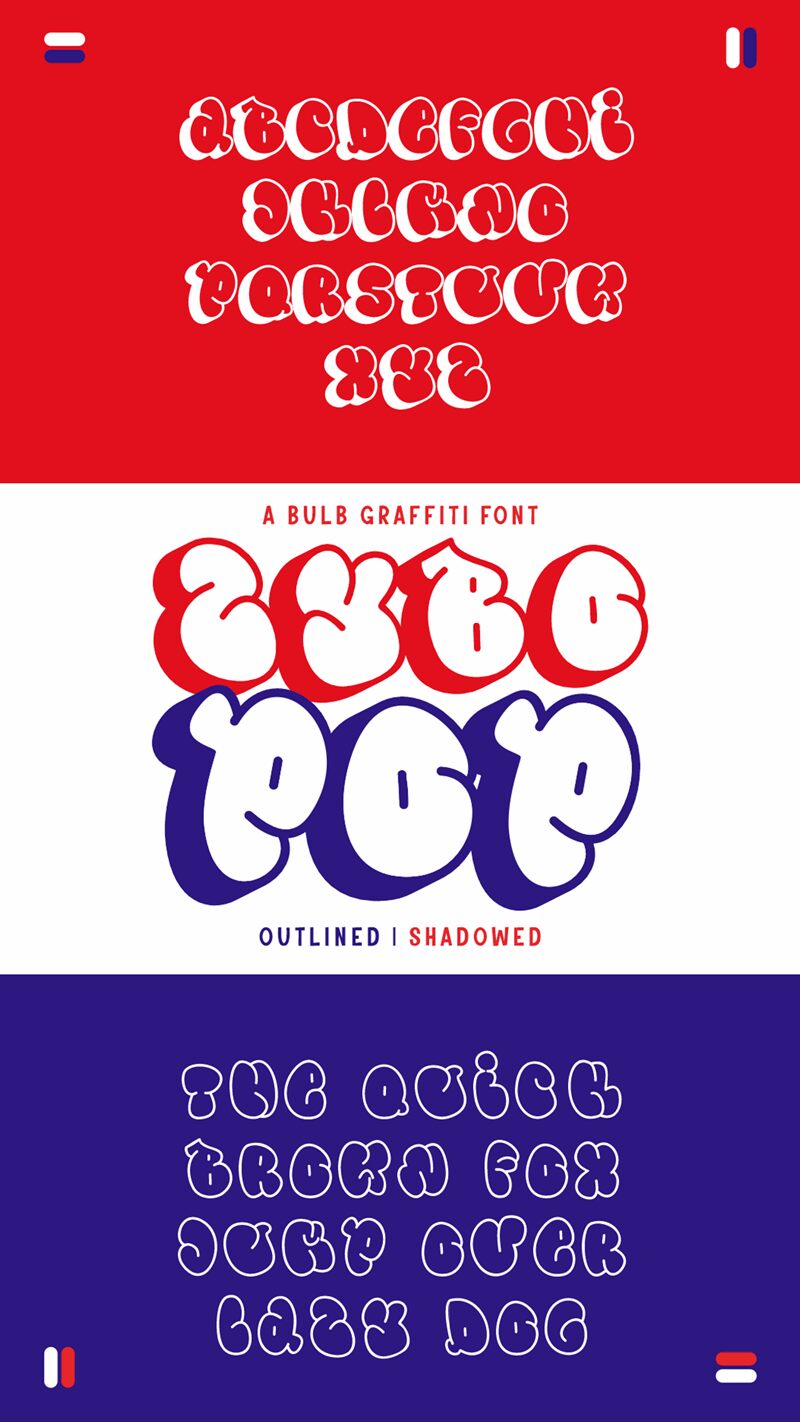
Zybo Pop font family by Cikareotype Studio is a free graffiti-inspired font family with 4 font styles. The retro vibe of this typeface evokes a playful feel while maintaining an urban aesthetic thanks to its wide and bold presence. The dynamic silhouettes exude a whimsical and youthful energy that will ensure this typeface is impactful regardless of the medium it’s used in. The vibrant and stylish energy of this font family will help your design projects shine.
Get professional results with repeated uses in different horizontal and vertical views when incorporated in branding, social media, business cards, movies, and book covers. The overall playful, juvenile, and retro vibe of this typeface makes it suitable for animated series, comics, food and drink packaging, pop and street fashion, technology, or even automotive-related projects.